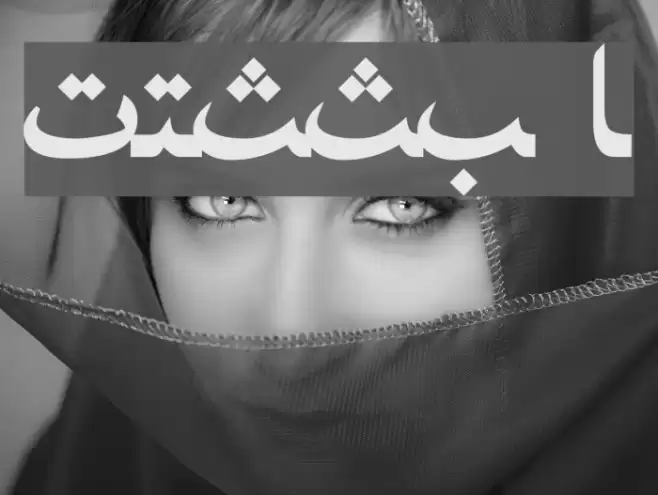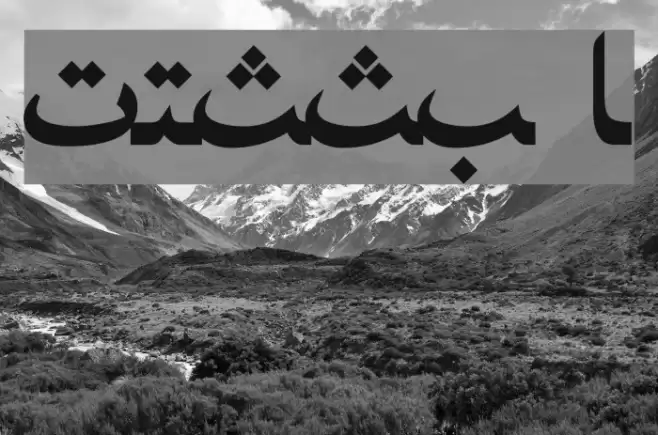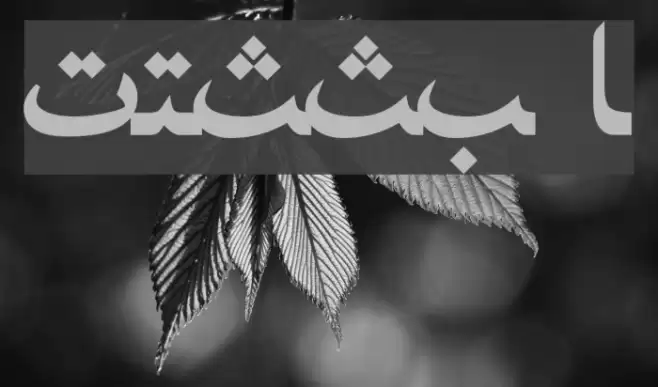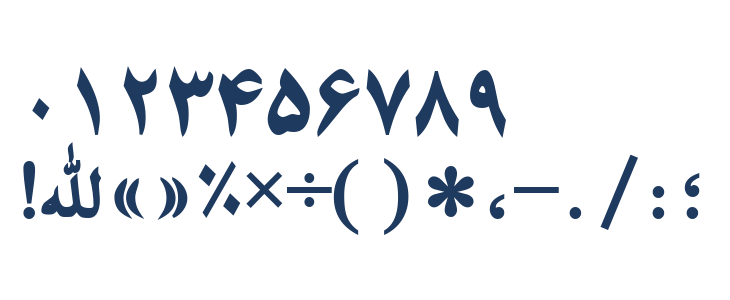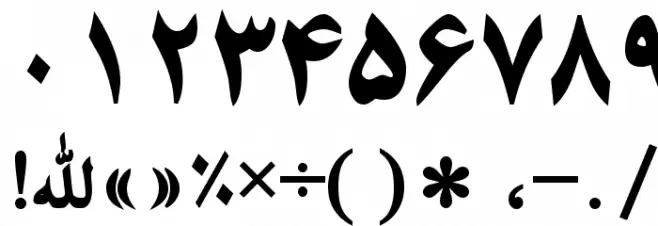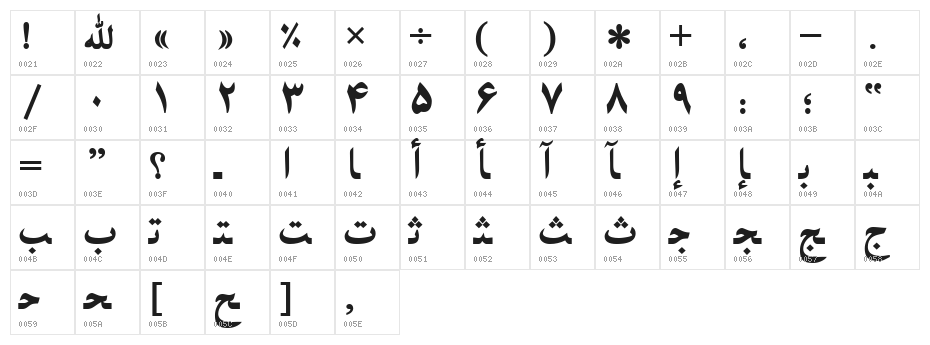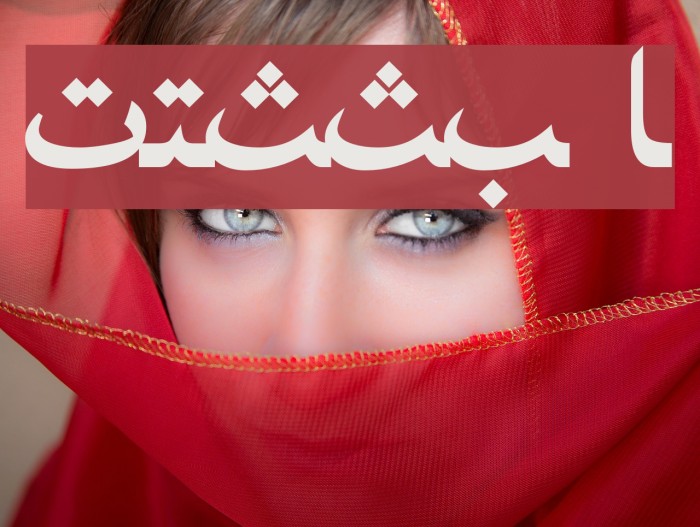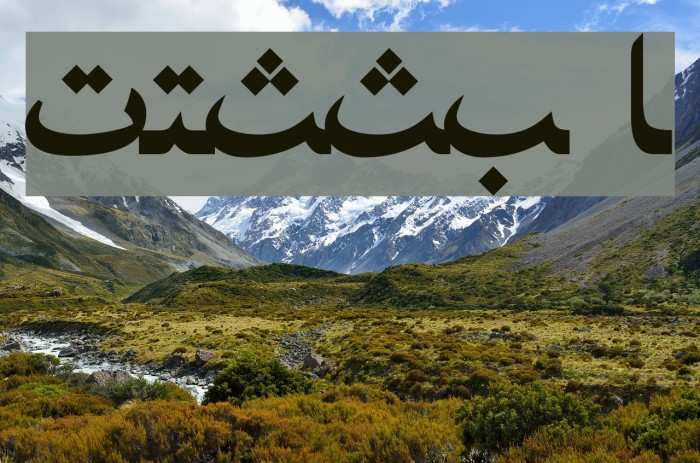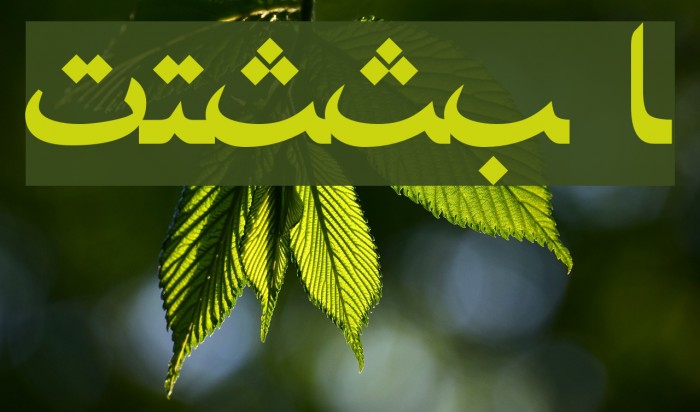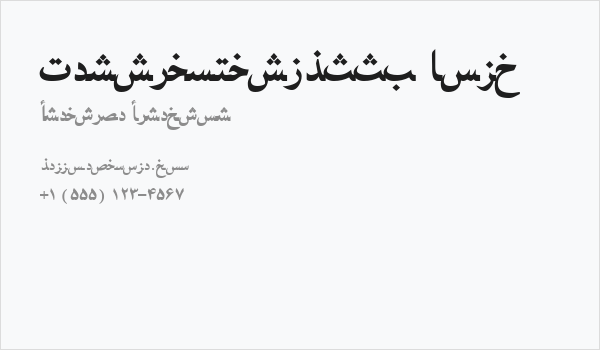
PersianNaskhSSK Bold Font
PersianNaskhSSK Bold Description
This font exhibits a bold and expressive style, characterized by its thick strokes and elegant curves. It embodies a traditional aesthetic with a modern twist, making it suitable for both classic and contemporary designs. The characters are well-defined, with a strong presence that commands attention. The font's intricate details and smooth transitions between strokes add a touch of sophistication, while its boldness ensures readability and impact. It is versatile enough to be used in various design contexts, from formal documents to creative projects, offering a unique blend of tradition and modernity.
A bold, expressive font with thick strokes and elegant curves, blending tradition with modernity from Uncategorized fonts.
- Proposed Projects: Ideal for branding, headlines, posters, and any project requiring a strong, traditional yet modern aesthetic.